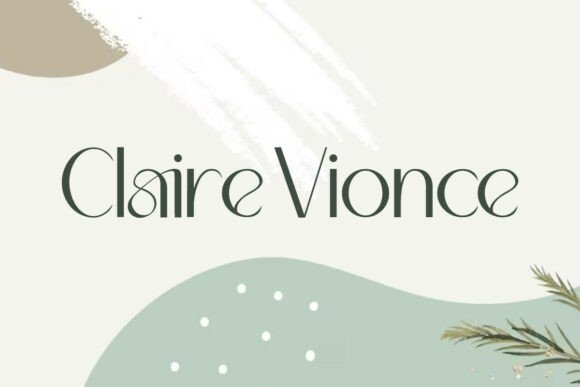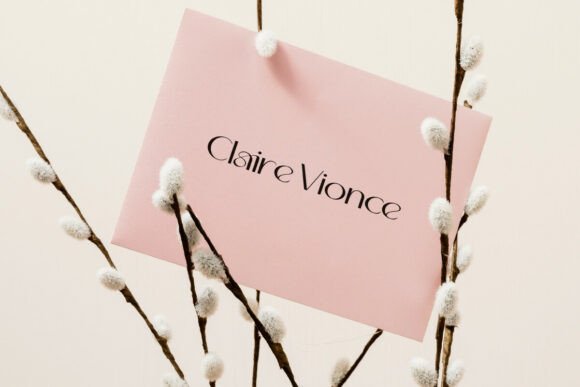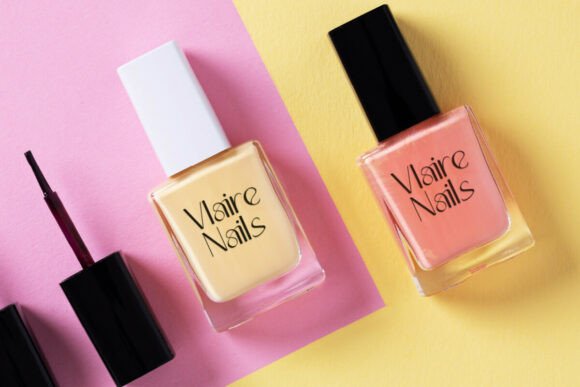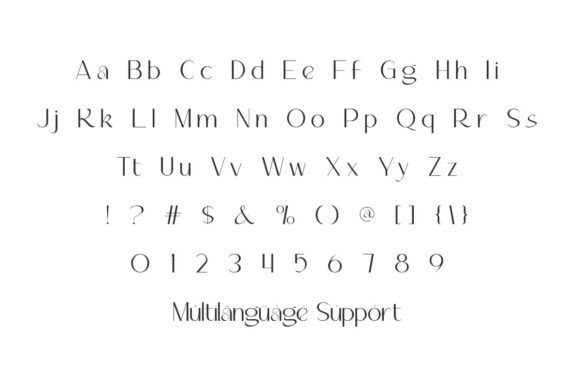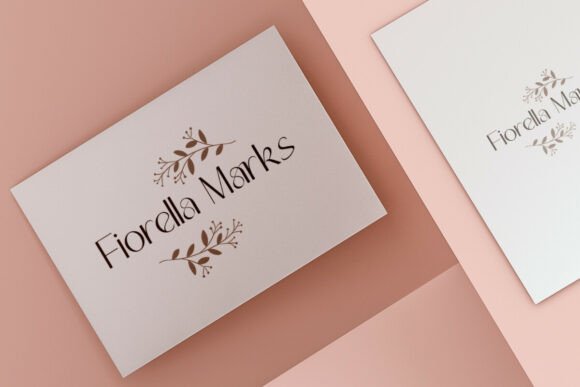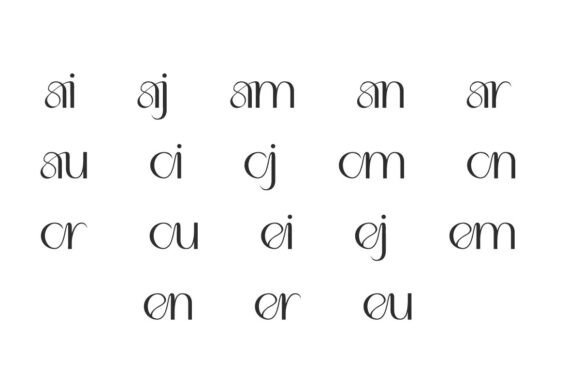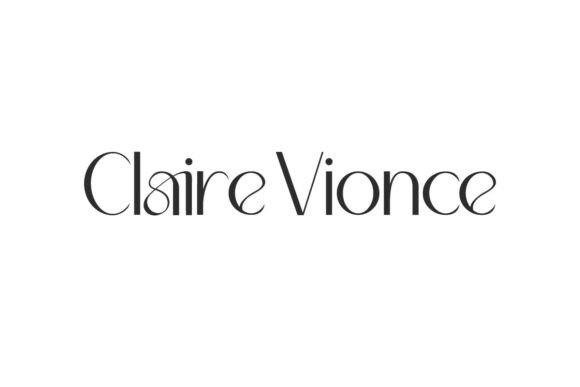
Introducing Clairevionce Font: Elevate Your Designs with Elegance and Sophistication
In the world of typography, fonts play a crucial role in defining the aesthetic and tone of a design. For those seeking a blend of modern sophistication and timeless elegance, the Clairevionce Font is an exceptional choice. This chic, sophisticated display serif font is meticulously crafted for elegant branding and high-end design, making it perfect for designers and crafters looking to elevate their projects.
Design Characteristics of Claire Vionce
Claire Vionce combines clean, contemporary letterforms with artistic curves and refined ligatures, such as the flowing connections in “ai”, to create a graceful and luxurious visual experience. Its lightweight elegance and high contrast strokes deliver a professional yet expressive appearance, making it an ideal choice for designs that seek both beauty and modern sophistication.
The font includes a complete set of basic uppercase and lowercase characters, numerals, punctuation, and symbols. Additionally, it is enriched with ligature characters that add visual charm and flexibility, allowing designers to create unique and captivating text arrangements.
Claire Vionce is incredibly versatile and can be used across various design applications. Its elegant and sophisticated appearance makes it perfect for:
- Apparel: Elevate your fashion brand with a font that exudes style and luxury.
- Beauty Clinics and Cosmetics: Add a touch of sophistication to your branding and packaging.
- Boutiques and Furniture: Create a unique and high-end visual identity for your store or product.
- Graphic Design: Use Claire Vionce to add elegance and refinement to your graphic design projects.
- Weddings and Events: Make your event invitations and decor stand out with a font that embodies luxury and style.
- Spa Salons: Create a serene and sophisticated ambiance with Claire Vionce.
- Creative Writing: Add a touch of elegance to your publications, blogs, or books.
Why Choose Claire Vionce?
For designers and crafters looking for a font that combines elegance, sophistication, and versatility, Claire Vionce is an exceptional choice. Its unique blend of clean lines, artistic curves, and refined ligatures makes it perfect for high-end designs and branding projects.
With Claire Vionce, you can:
- Create stunning and sophisticated designs that stand out.
- Elevate your brand’s visual identity with a font that exudes luxury and style.
In conclusion, Clairevionce Font is a beautiful and sophisticated display serif font that is perfect for designers and crafters looking to elevate their designs. With its elegant and refined features, versatility in design applications, and high technical compatibility, Claire Vionce is an exceptional choice for those seeking to create stunning and sophisticated designs.
Whether you’re working on a branding project, designing a website, or creating marketing materials, Claire Vionce is a font that can help you achieve your design goals. Its unique blend of modern sophistication and timeless elegance makes it a valuable addition to any designer’s toolkit.